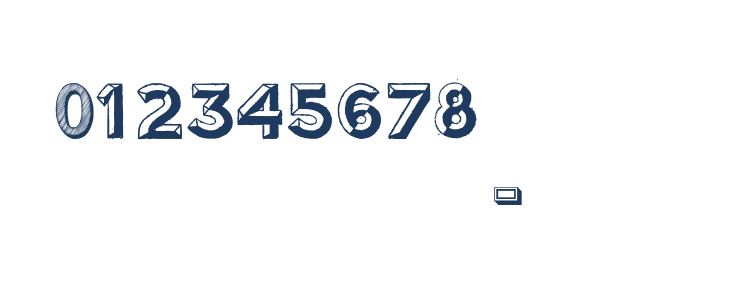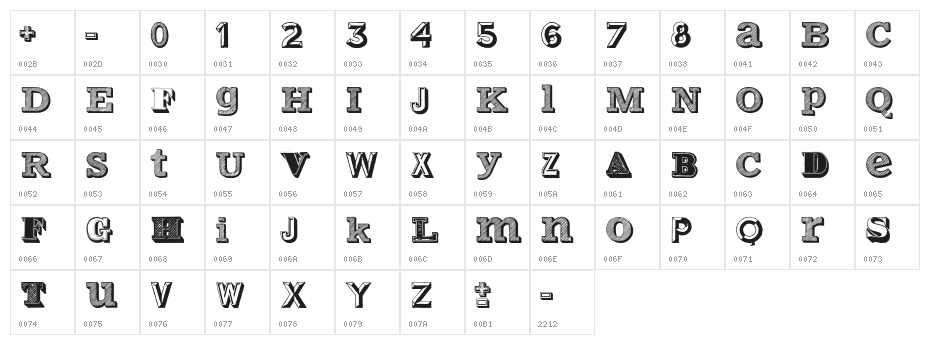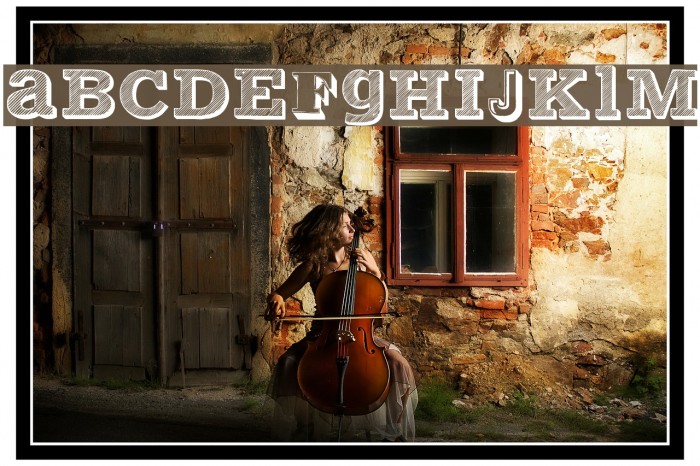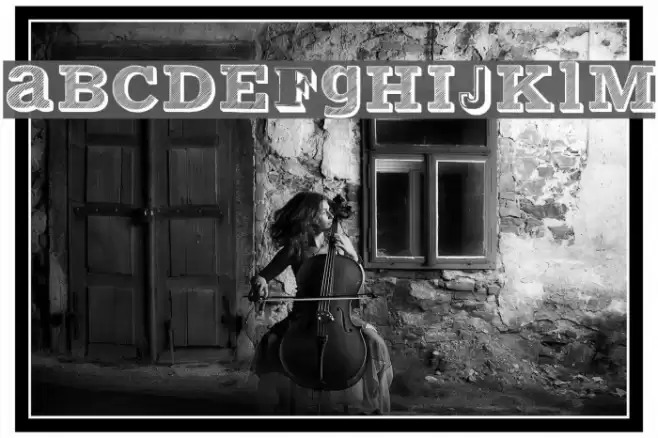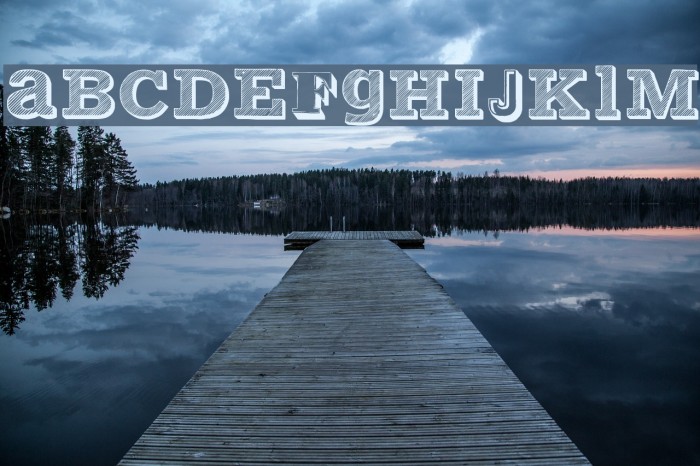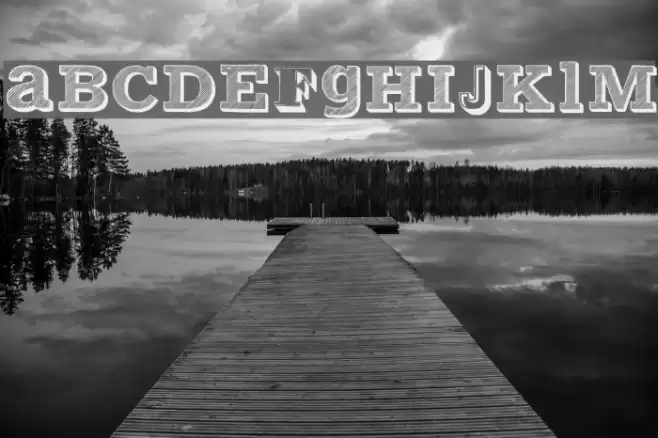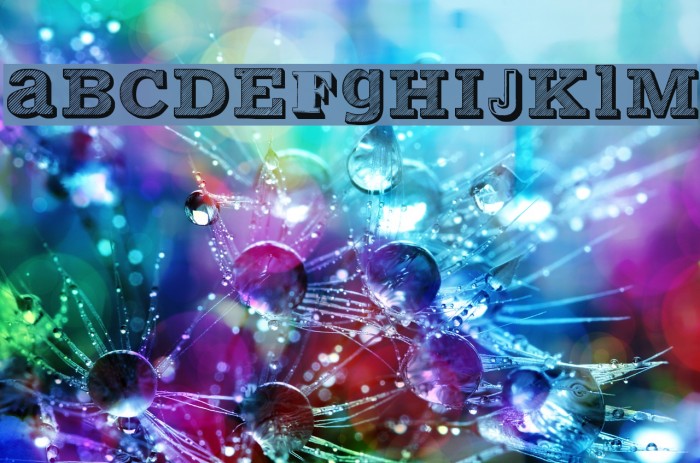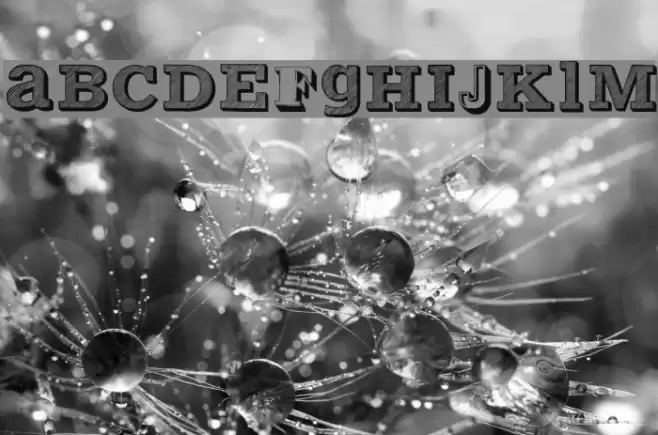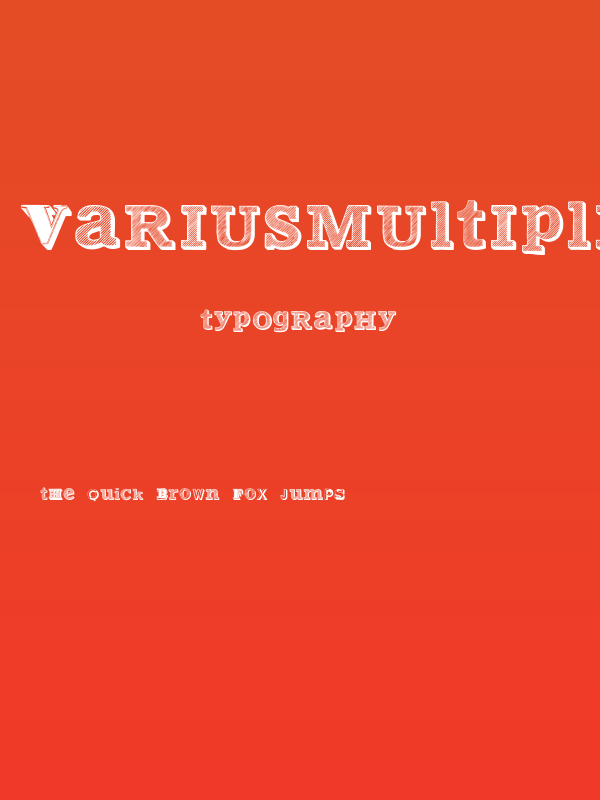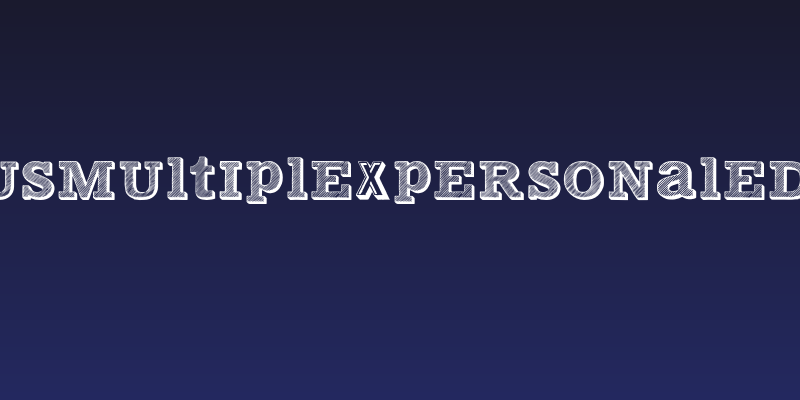
VariusMultiplexPersonalEdition Font
VariusMultiplexPersonalEdition Description
This font features a bold and dynamic style with a three-dimensional effect, achieved through shading and outlines. Each character is designed with a unique pattern, giving it a textured appearance that adds depth and interest. The uppercase and lowercase letters maintain a consistent style, while the numbers and special characters complement the overall design. The font's playful and artistic nature makes it stand out, making it suitable for creative and eye-catching projects.
Proposed ProjectsIdeal for posters, headlines, branding, and any project requiring a bold, artistic touch.